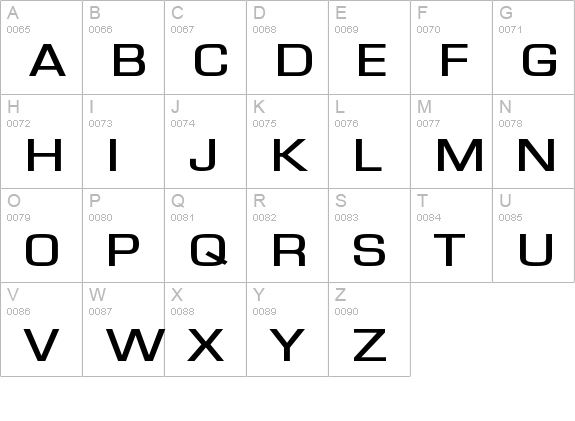
Eurasia Extended Bold Font Details
Eurasia Extended Bold is a strong, high-contrast, extended-width variant in the Eurasia typeface family \xE2\x80\x94 well suited to headlines, attention-grabbing titles, and strong calls-to-action.
Introducing Eurasia Extended Bold font, a modern and versatile typeface designed to make a bold statement in any design project. With its strong, sturdy letterforms and extended proportions, this font commands attention and conveys a sense of strength and confidence. Eurasia Extended Bold font is perfect for headlines, posters, branding, and any project where you want to make a bold impact. Its versatility allows it to be used in a variety of design styles, from sleek and modern to bold and impactful. Best of all, Eurasia Extended Bold font is available for free download at FontsMarket.com. This means you can easily access this powerful font and incorporate it into your designs without any cost. Don't miss out on this opportunity to elevate your designs with the striking Eurasia Extended Bold font.